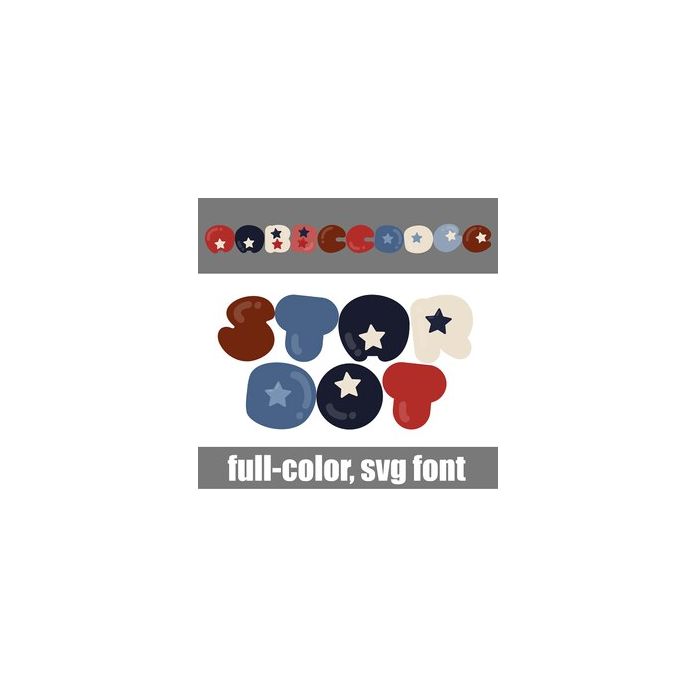
This full-color font features fat, rounded lettering with stars in the center in a patriotic color palette. There is an alt version you can access through your system's character map that contains additional colors of all the letters.